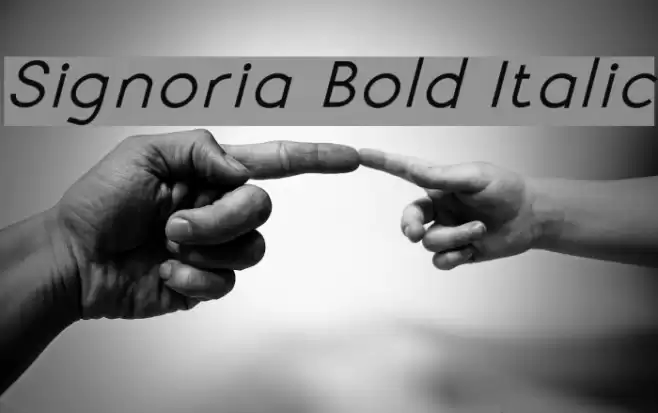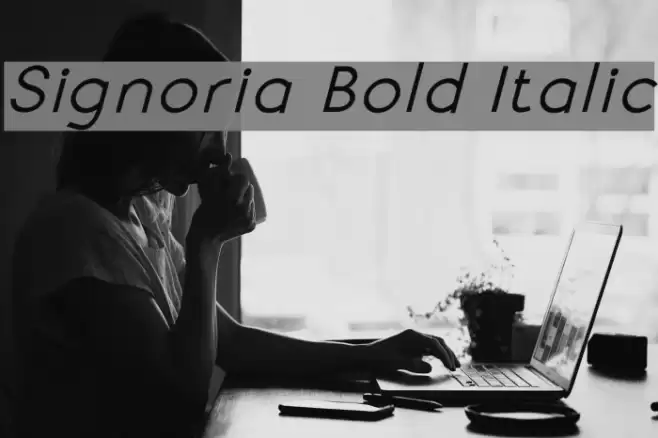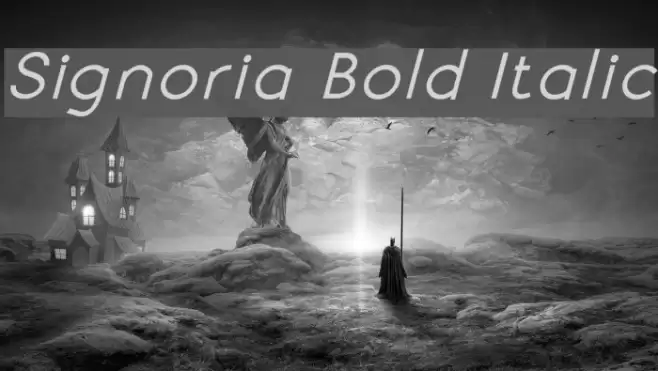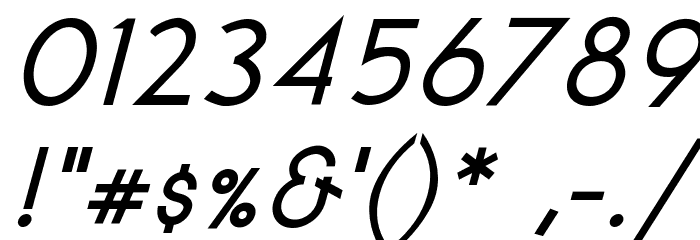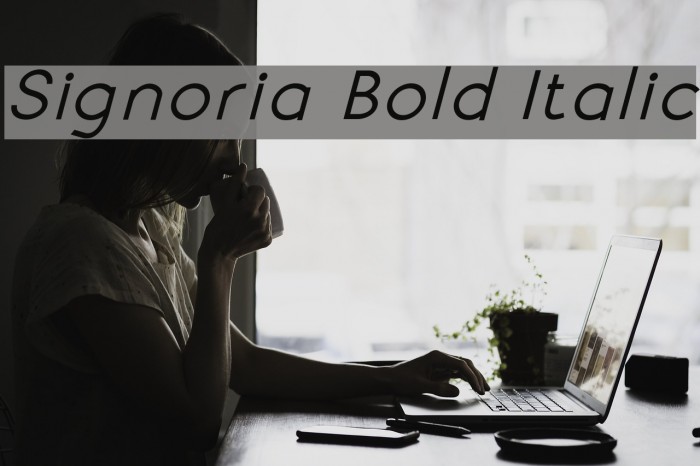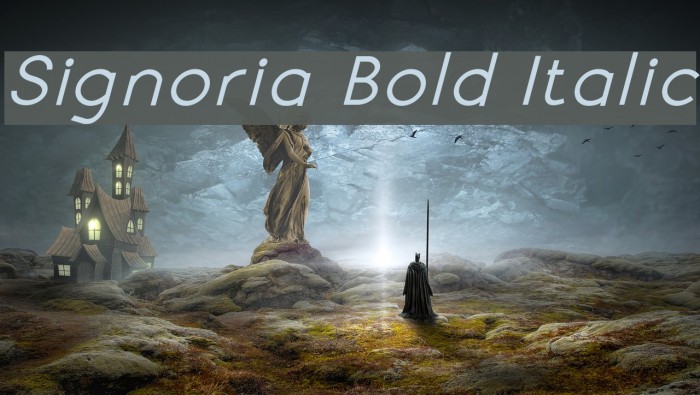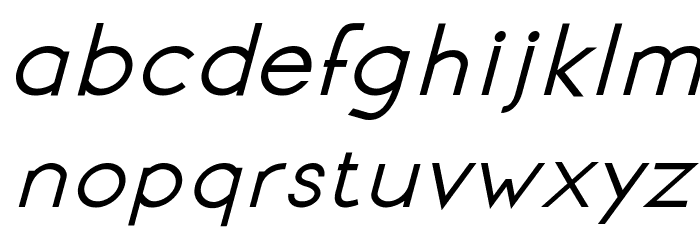
Signoria Bold Italic Font
Signoria Bold Italic Description
This font features a sleek and modern design with a bold and italic style. The characters are slightly slanted, giving a dynamic and forward-moving appearance. The strokes are consistent in thickness, providing a uniform look across all characters. The uppercase letters are well-proportioned, while the lowercase letters maintain a smooth flow. The numerals are clear and easy to read, making them suitable for various applications. Special characters are distinct and match the overall style, ensuring versatility in usage. The font's design is both elegant and contemporary, making it ideal for projects that require a touch of sophistication.
A bold and italic modern font with a sleek, dynamic style from Sans Serif fonts.
- Proposed Projects: Ideal for branding, advertising, and editorial design projects that require a modern and elegant touch.
- Use Case: Headlines, Logos, Branding